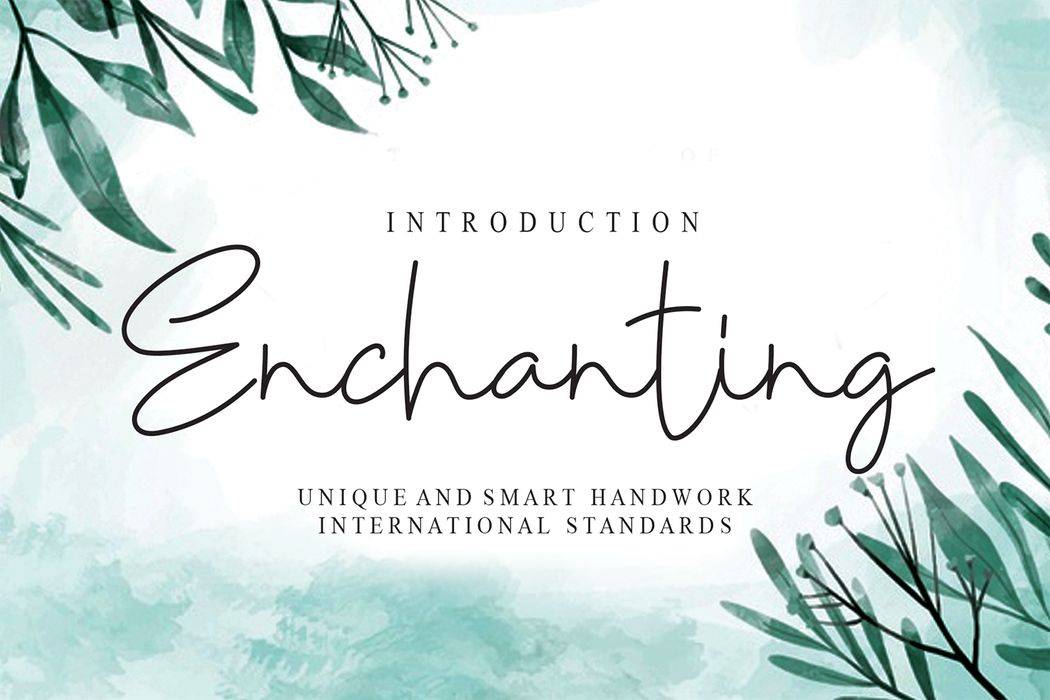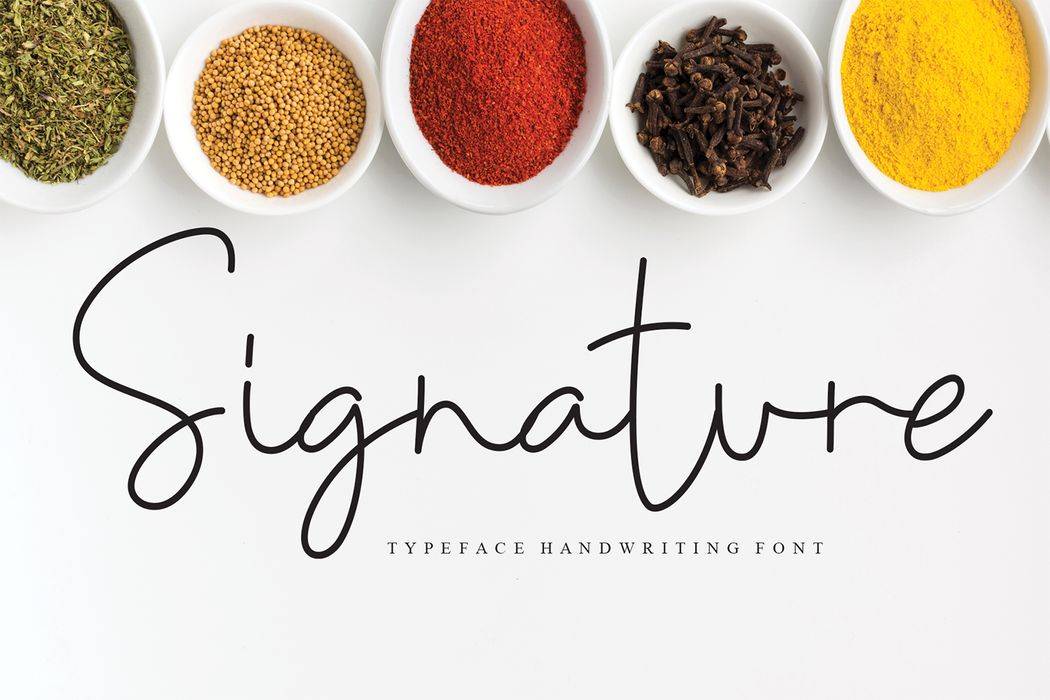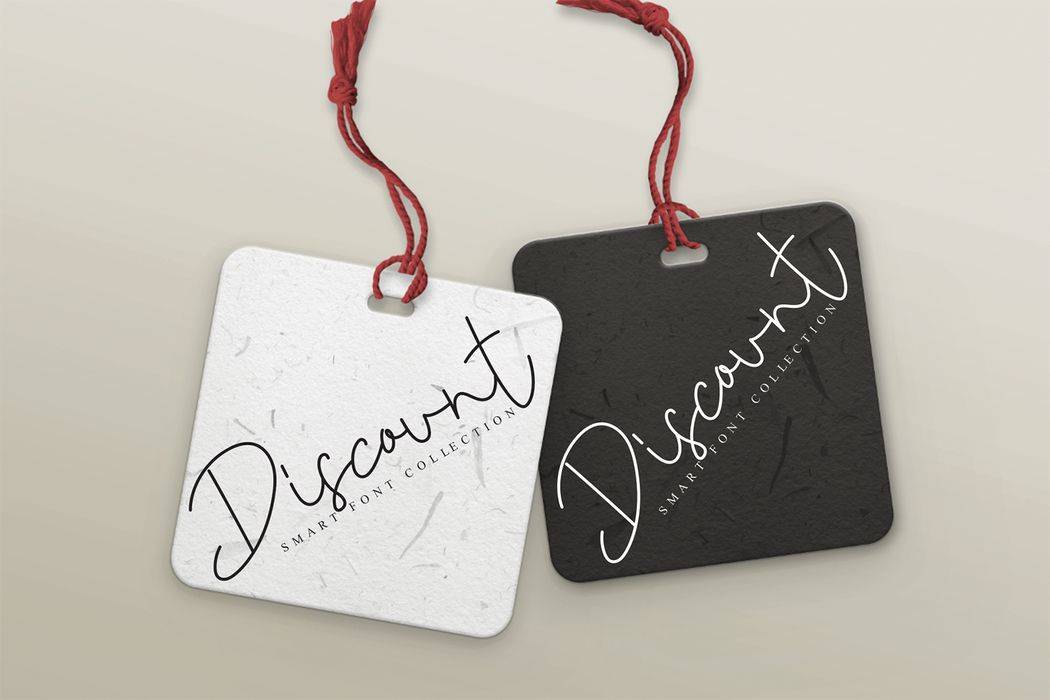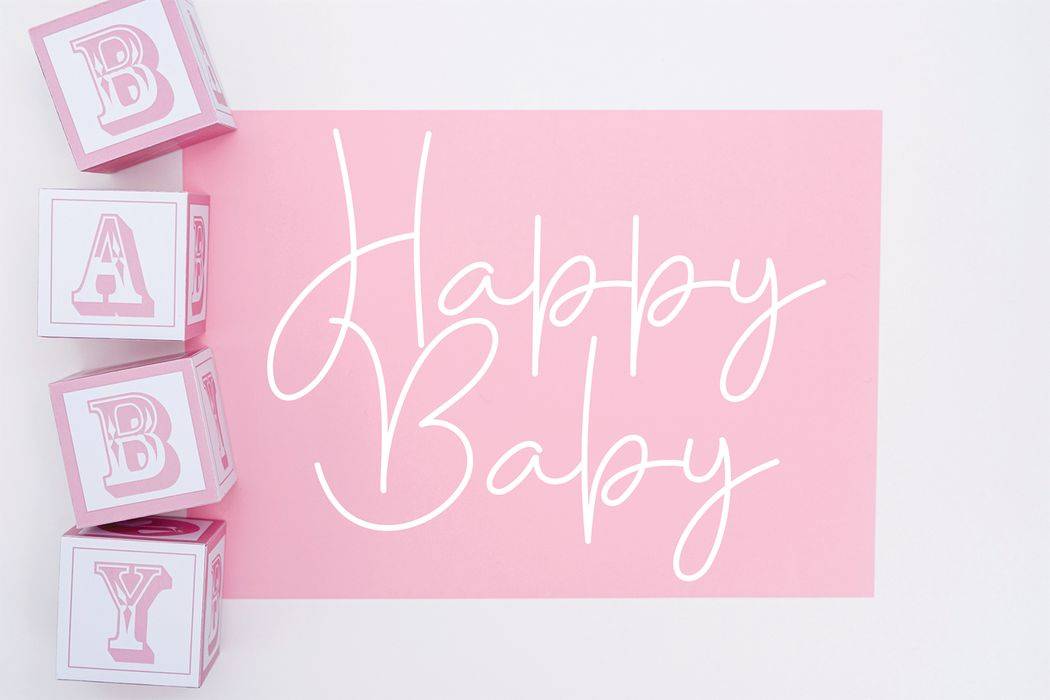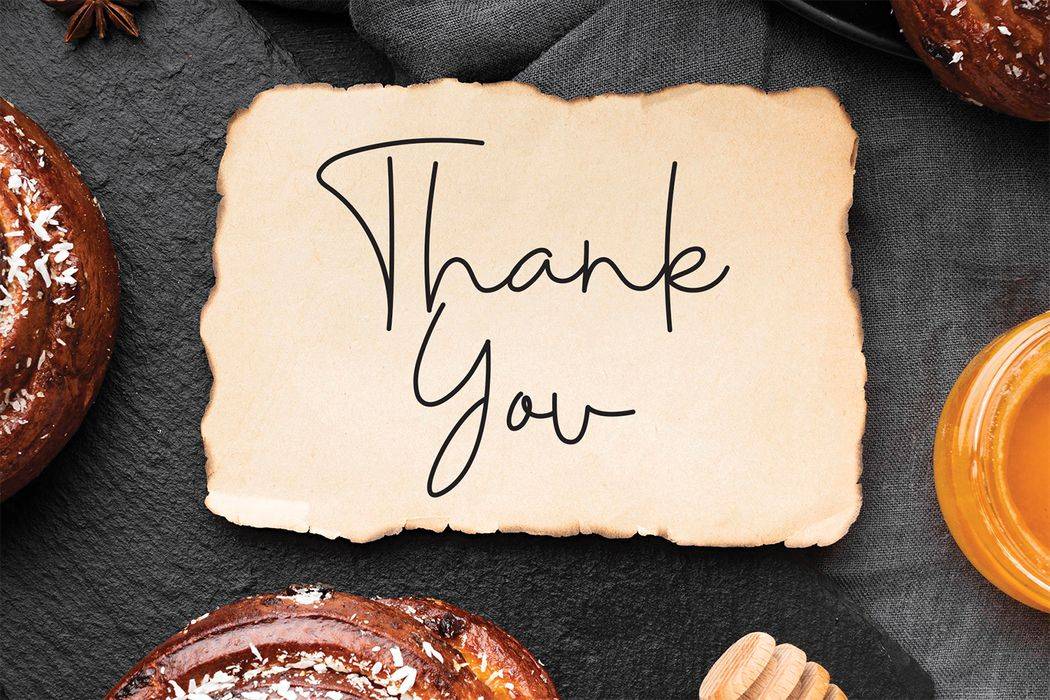
Enchanting Font is a delicate, script-style typeface with elegant, flowing letterforms and graceful swashes that give it a charming, handwritten feel. Its thin strokes and tall x-height create a refined and airy appearance, making it perfect for sophisticated branding, wedding invitations, and feminine designs that require a touch of romantic elegance. This font shines best in large sizes where its intricate details can be fully appreciated.
Enchanting Font